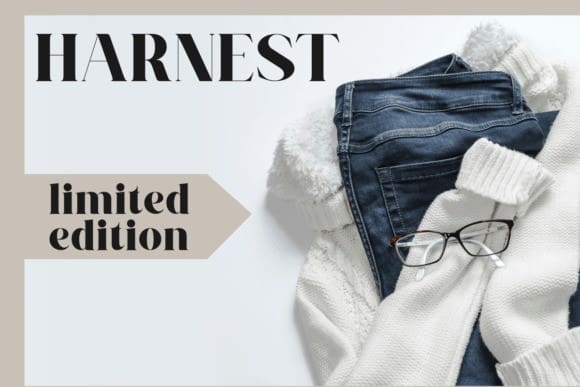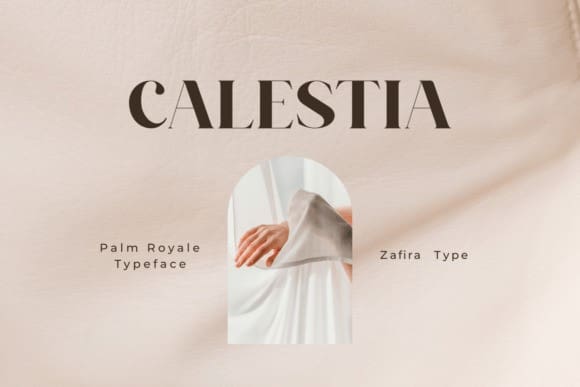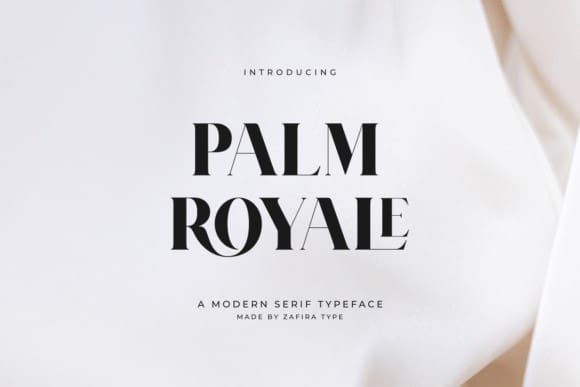
Palm Royale Font
Palm Royale Font is a type of serif font that combines classic elegance with a contemporary touch. With smooth yet sturdy lines, this font creates an impression of luxury and sophistication in every design. Suitable for various design purposes ranging from print materials to digital designs, “Palm Royale” delivers a sharp and classy message. With a regal aura that resonates, this font is the perfect choice for design projects requiring an exclusive and impressive touch.